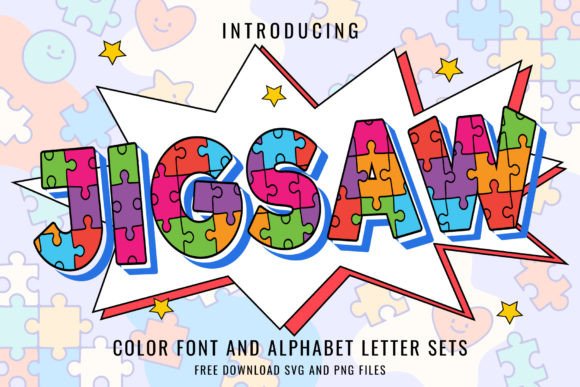
Jigsaw Font
Jigsaw Puzzle is a 3D fun and playful color font. It is the perfect font for kids’ projects and more. It works great for creating cool designs that scream for attention. It’s ideal for anything ranging from t-shirts, book designs, restaurant menus, blog writing, and greeting cards to stickers, or anything that needs a casual touch. Fall in love with its incredibly cool style, and use it to create lovely designs!